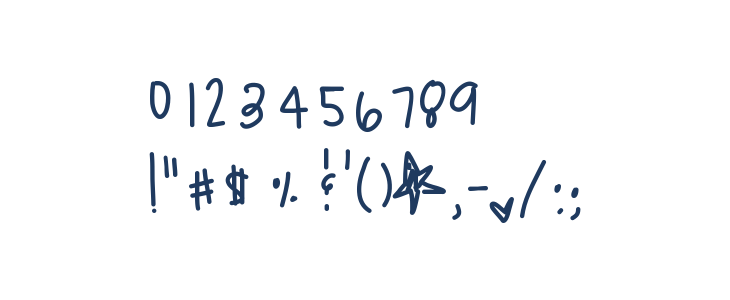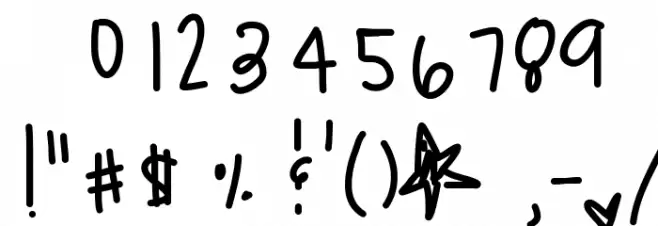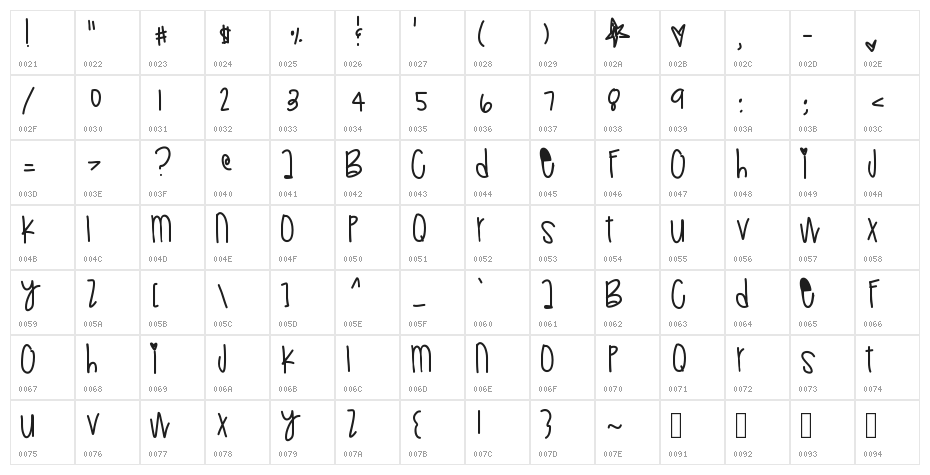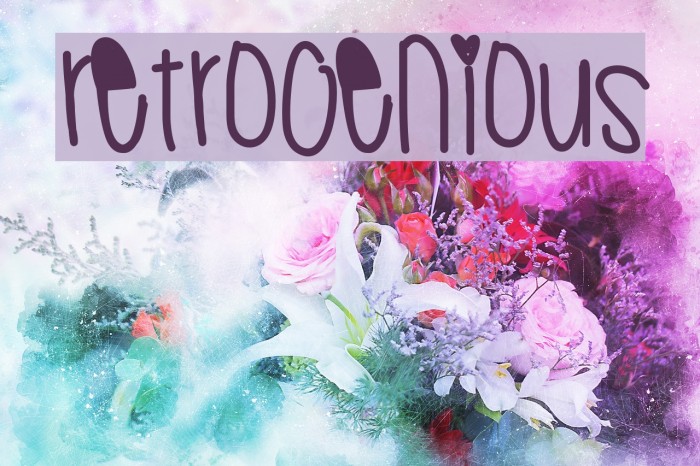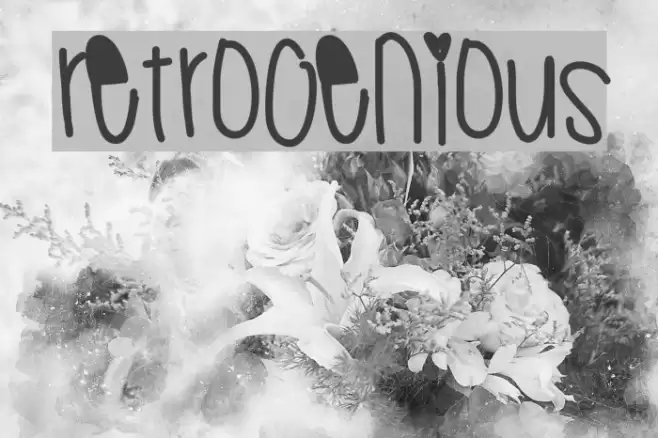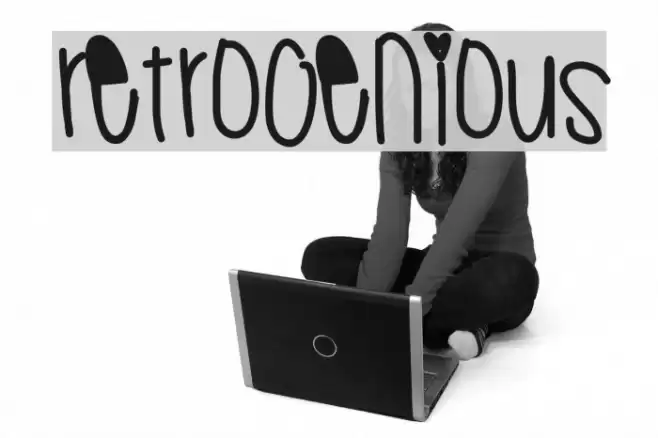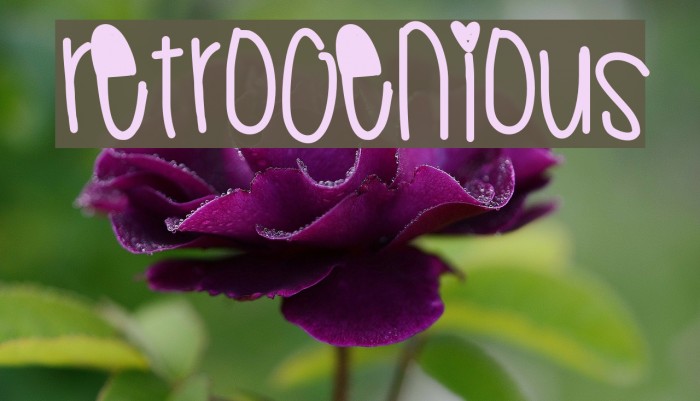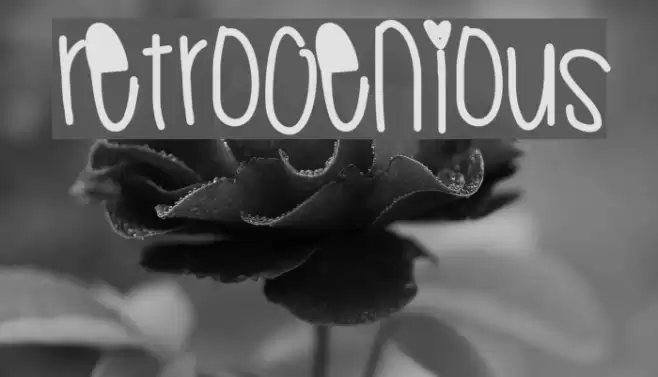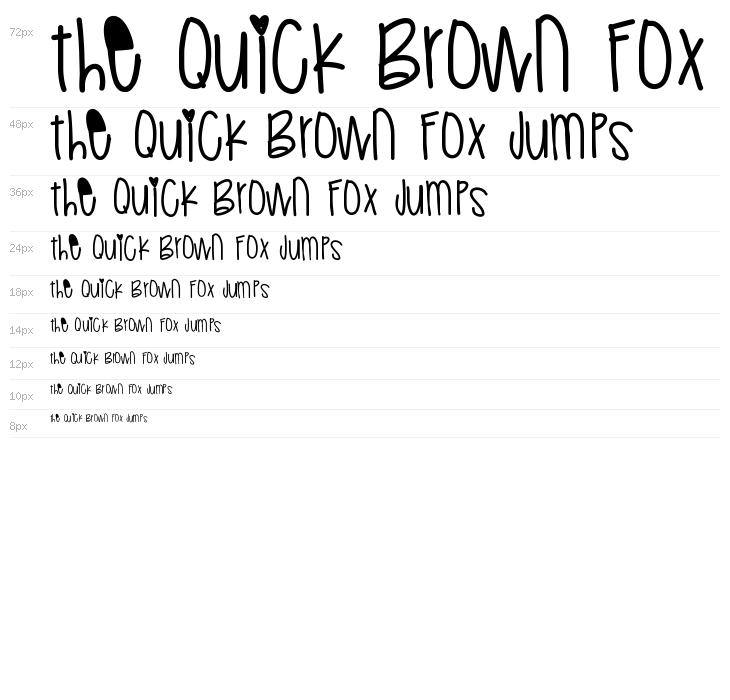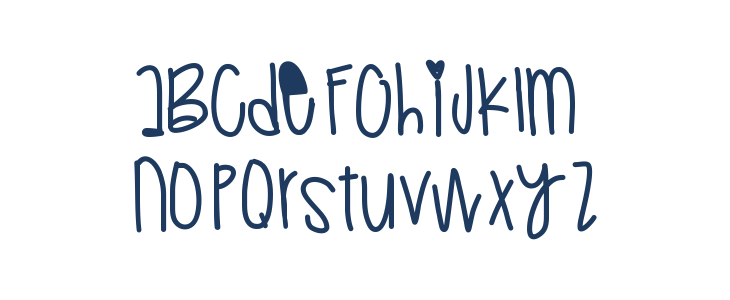
Retrogenious Font
Retrogenious Description
This playful and whimsical font features a handwritten style with a unique, quirky flair. The letters are tall and narrow, with varying stroke thickness that adds a dynamic feel. Some characters, like the 'O' and 'i', incorporate playful elements such as hearts, enhancing its charm. The numbers and special characters maintain the same lively style, making it suitable for creative and informal designs. The overall appearance is casual and friendly, perfect for projects that require a personal touch.
Use CaseHeadlines, Logos, Informal Text
Proposed ProjectsIdeal for children's books, greeting cards, playful branding, and social media graphics.